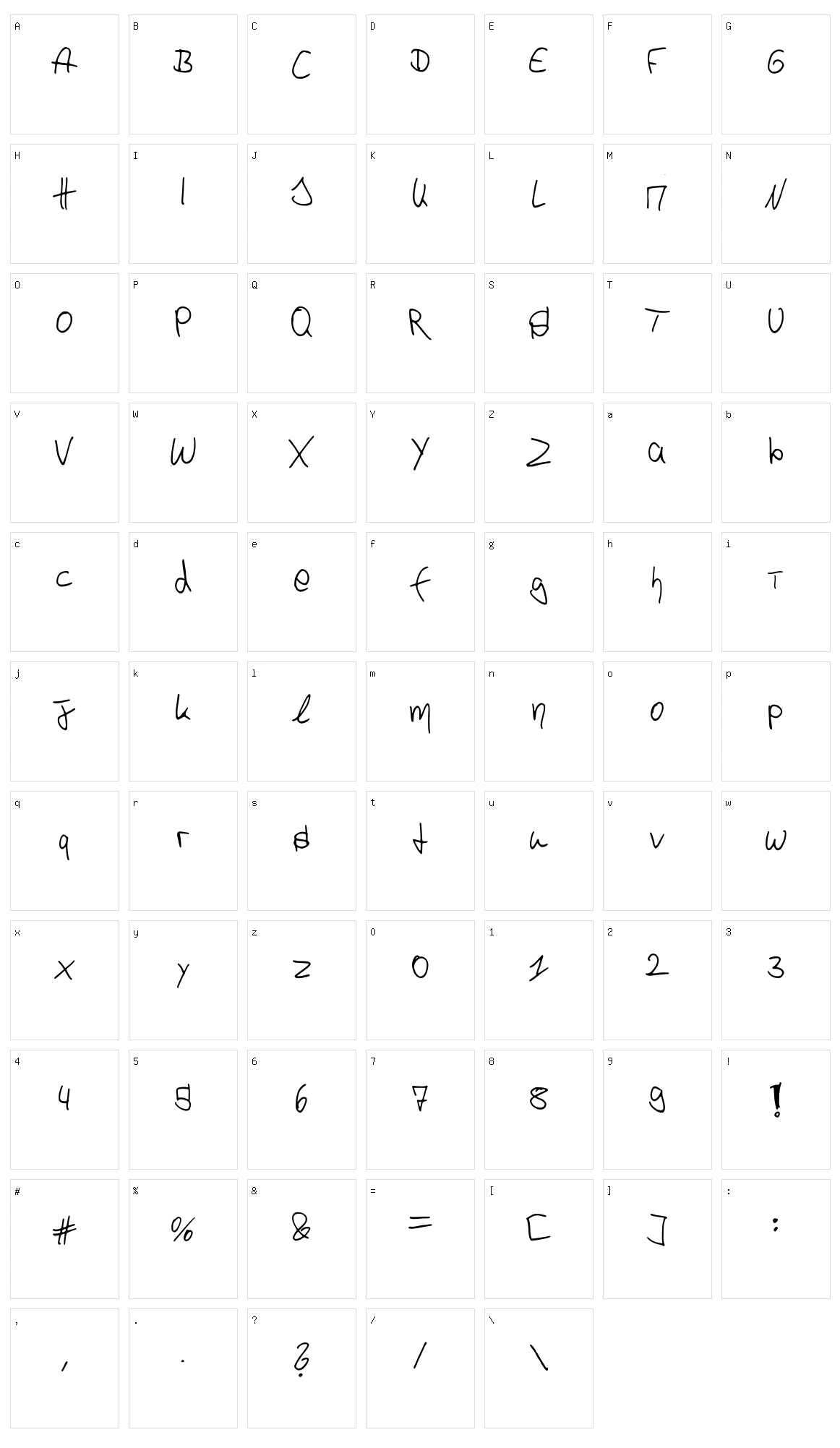
The free font p4r4d0x h4ndwr1tt3n is carefully designed by p4r4d0x, showcasing a thoughtful balance of creativity and usability and falls under the Script font style. When you download the ZIP file, it contains only 25.22 KB of font files, making it lightweight and quick to download. Please review the license details below to understand permitted usage and distribution rights. If license information is not available, we recommend using this font for personal projects only or contacting the author directly for commercial usage permissions.